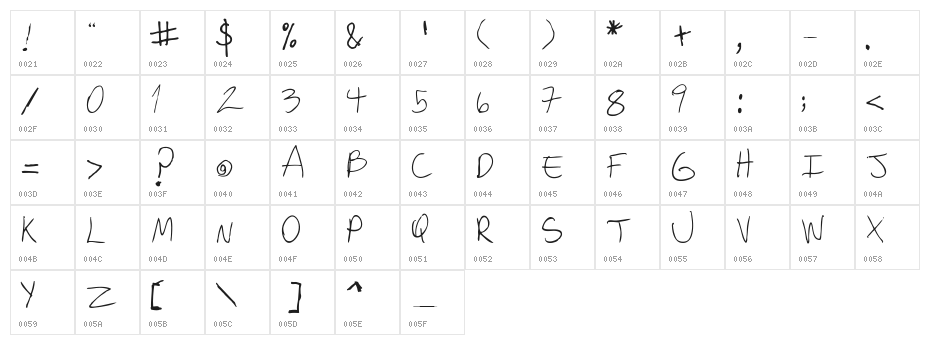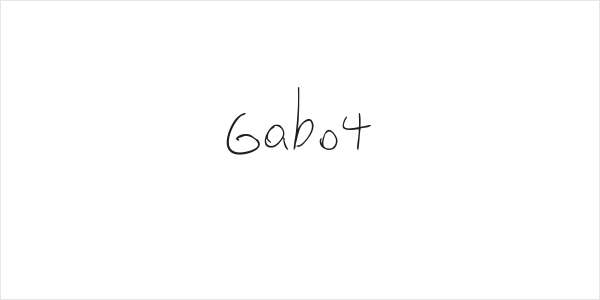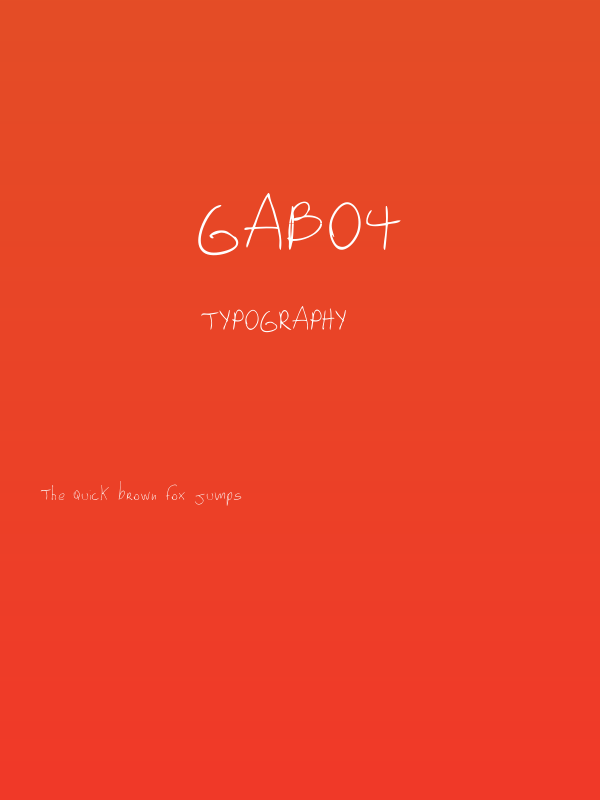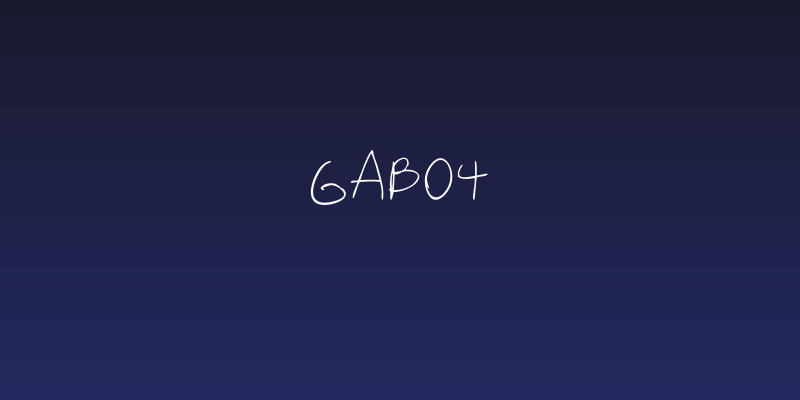
Gabo4 Font
Gabo4 Description
This font exhibits a casual, handwritten style with a playful and informal appearance. The letters are unevenly spaced, with varying heights and angles, giving it a dynamic and lively feel. The strokes are thin and slightly irregular, adding to the hand-drawn aesthetic. It features both uppercase and lowercase letters, numbers, and a variety of special characters. The overall look is approachable and friendly, making it suitable for creative and informal projects.
| Proposed Projects | Ideal for greeting cards, personal notes, children's books, and creative projects that require a friendly and informal touch. |